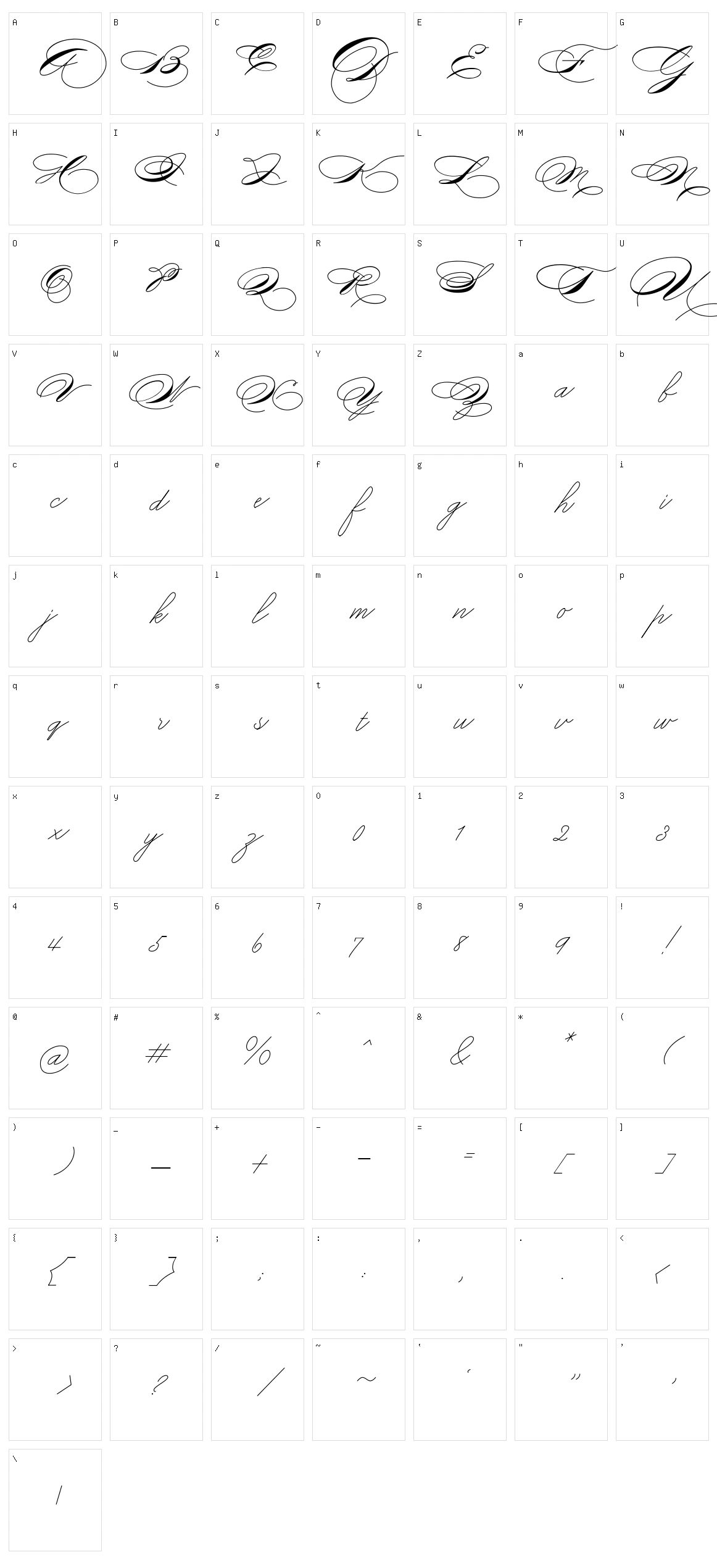
The free font Mike Ferrari 16017 is carefully designed by theMikeFerrari, showcasing a thoughtful balance of creativity and usability and falls under the Script font style. When you download the ZIP file, it contains only 56.07 KB of font files, making it lightweight and quick to download. Please review the license details below to understand permitted usage and distribution rights. If license information is not available, we recommend using this font for personal projects only or contacting the author directly for commercial usage permissions.